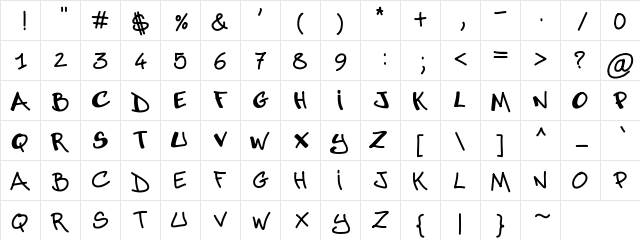
Complete Abuse Regular glyph index. Displaying only characters natively supported by Abuse Regular font.
Abuse is a composed and adaptable typeface that performs quietly and consistently across a wide range of design contexts.
Pro Tip: Use Abuse in both headline and body roles to test its range before committing to a single application.